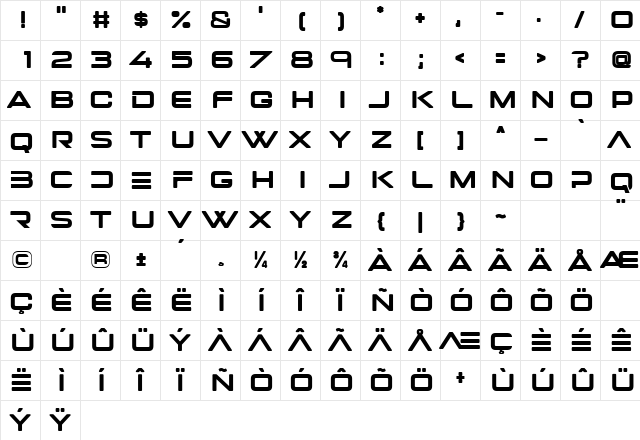
rigel star Regular
| Foundry | 177Studio |
| Designer | 177Studio |
Design Context for rigel star Typeface
rigel star takes a measured approach to typography — its balanced proportions and neutral character make it a reliable workhorse for both digital and print work.